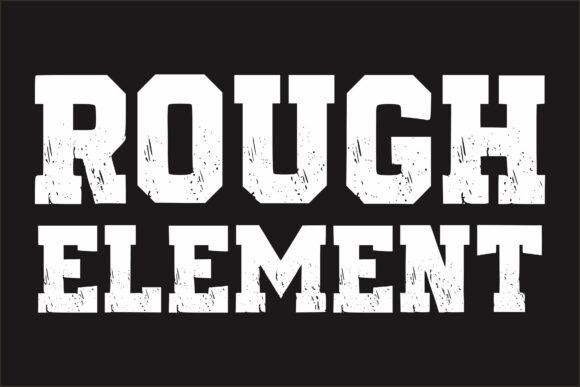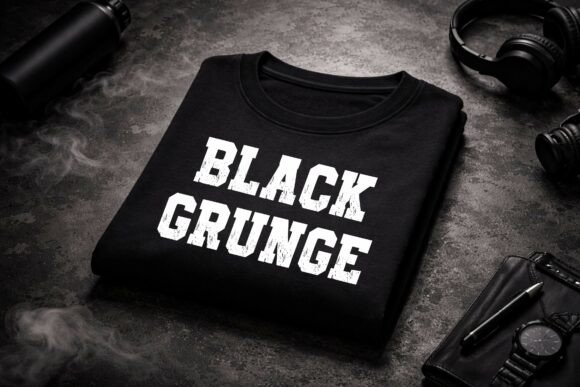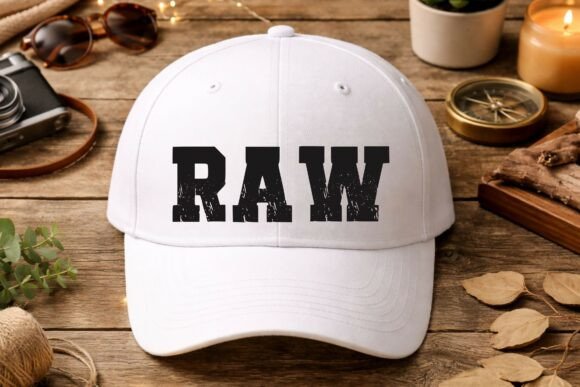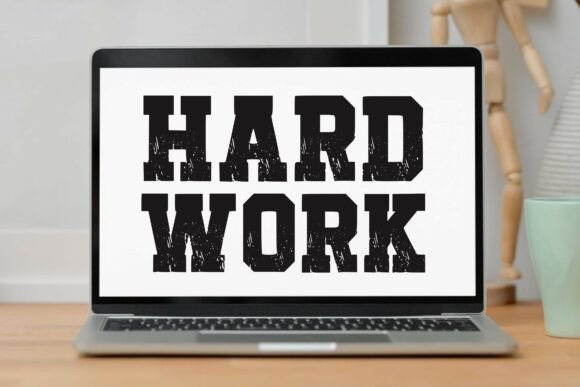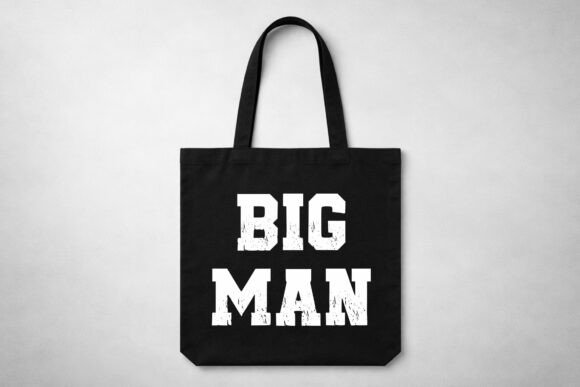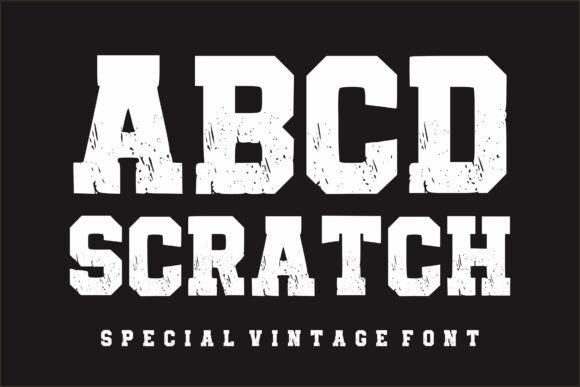
The Power of ABCD Scratch: Unleashing Retro Vibes in Your Designs
I’ll never forget the time I was working on a vintage-themed poster project, and I just couldn’t find the right font to bring my design to life. My client wanted something bold, something with character, something that screamed retro. I scoured the internet, tried out countless fonts, but nothing seemed quite right. That was until I stumbled upon ABCD Scratch. This bold and powerful vintage display font has been a game-changer for me, and I’m excited to share its awesomeness with you! 😊
First Impressions: What I Love About ABCD Scratch
ABCD Scratch is more than just a font – it’s an experience. Here are the things that I absolutely love about it:
- ✨ Authentic Retro Vibes: The rugged distressed texture and classic varsity lettering inspiration make it perfect for creating nostalgic designs that pop.
- ✅ Bold and Masculine: The font’s strong, rugged feel makes it ideal for designs that need a raw, edgy look.
- 🔥 Versatile: From branding and logos to t-shirt designs, posters, and sports graphics, ABCD Scratch can handle it all.
- 💻 Easy to Use: With its wide range of OpenType features and glyphs, you can easily customize your typography to fit your design needs.
While ABCD Scratch is an amazing font, there are a few things to keep in mind:
- 🤔 Legibility at Small Sizes: Due to its distressed texture, the font can get a bit fuzzy at smaller sizes. Make sure to test it out at different scales to ensure it works for your design.
- ⚠️ Limited Use in Formal Designs: The font’s bold, rugged feel might not be the best fit for more formal or corporate designs. Keep your project’s tone and style in mind when choosing a font.
Exploring Alternatives: Similar Fonts to ABCD Scratch
If you’re looking for something similar to ABCD Scratch or want to explore other options, here are a few fonts you might enjoy:
- Rugged Slab: A sturdy, slab-serif font with a similar rugged feel to ABCD Scratch. Perfect for designs that need a strong, no-nonsense look.
- Vintage Varsity: A font that captures the classic, athletic feel of varsity lettering. Great for sports-themed designs and retro-style posters.
- Distressed Display: A bold, distressed font with a similar texture to ABCD Scratch. Ideal for making a statement in your designs.
- Retro Bold: A font that combines bold, geometric shapes with a retro flair. Perfect for creating eye-catching headlines and titles.
The Story Behind ABCD Scratch: Designer Inspiration
According to its creators, ABCD Scratch was inspired by the classic typography of vintage varsity letters, sports jerseys, and worn-out print effects. The goal was to create a font that captures the raw energy and nostalgia of retro designs, while still feeling modern and bold. The result is a font that’s both timeless and on-trend – perfect for designers looking to add some authentic retro vibes to their work.
| What type of projects is ABCD Scratch best suited for? | ABCD Scratch is perfect for branding, t-shirt designs, logos, posters, sports graphics, and vintage-themed projects. |
| Is ABCD Scratch available in different weights or styles? | Currently, ABCD Scratch comes in a single bold weight, but its versatility and range of OpenType features make it easy to adapt to different design needs. |